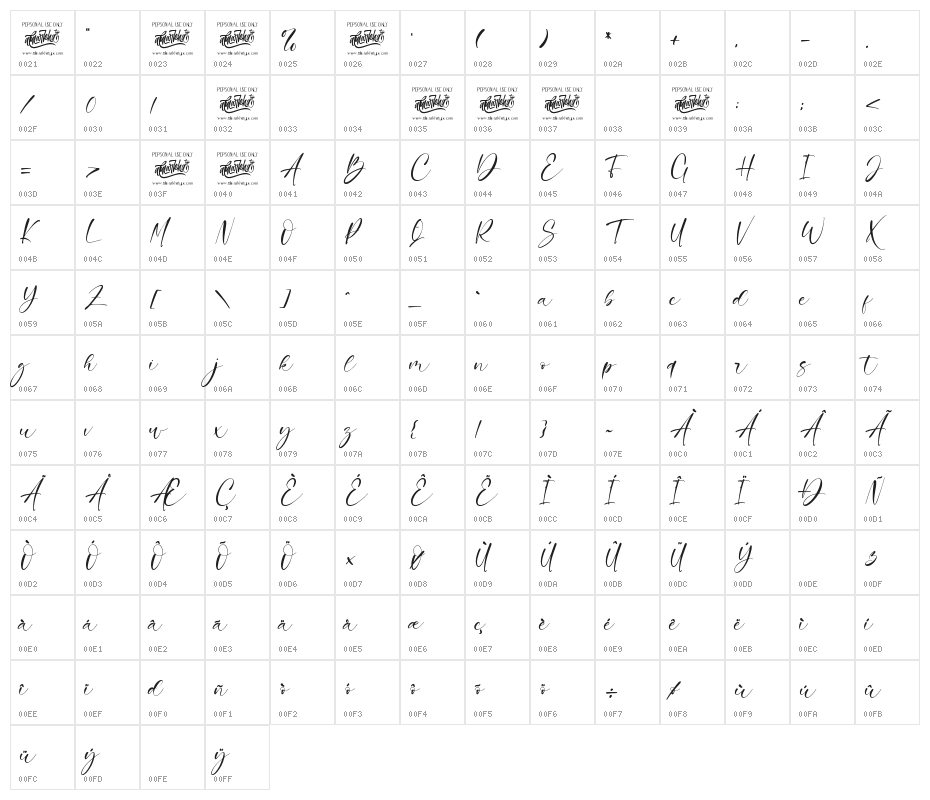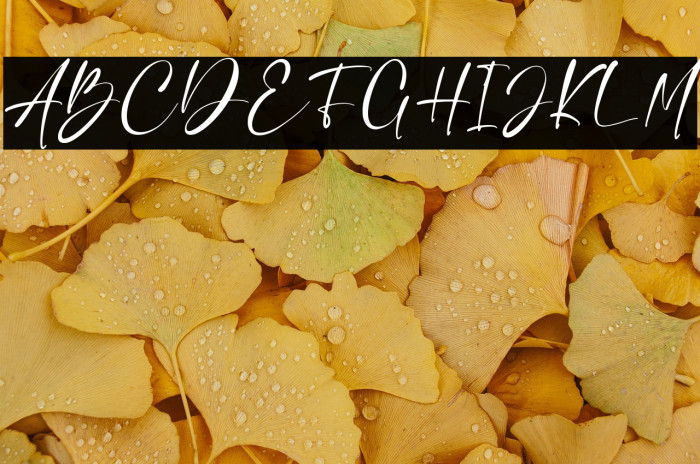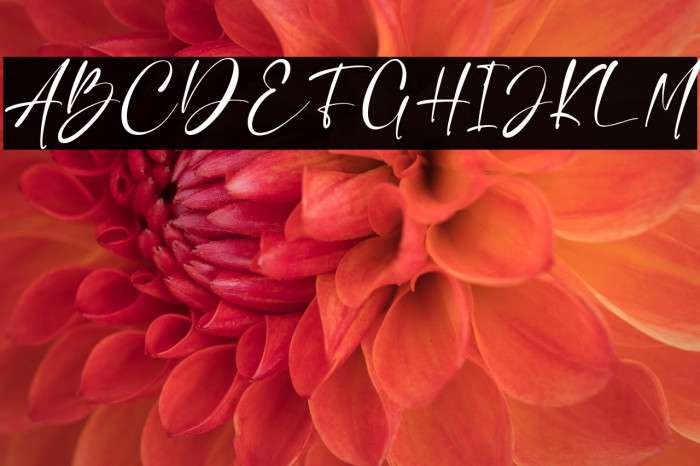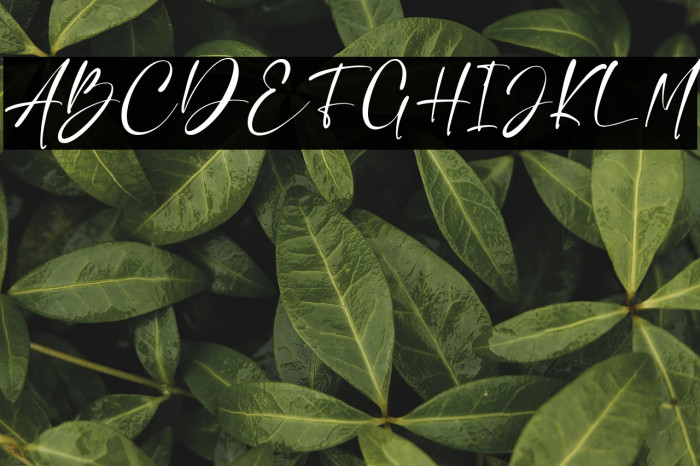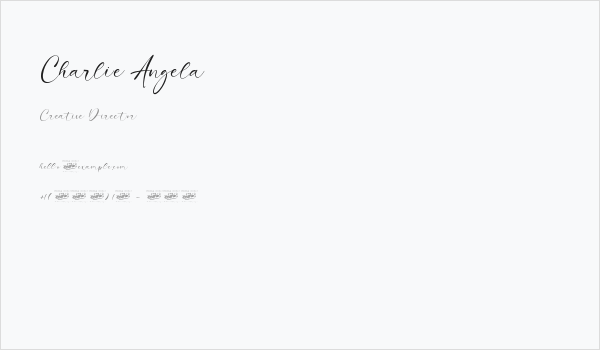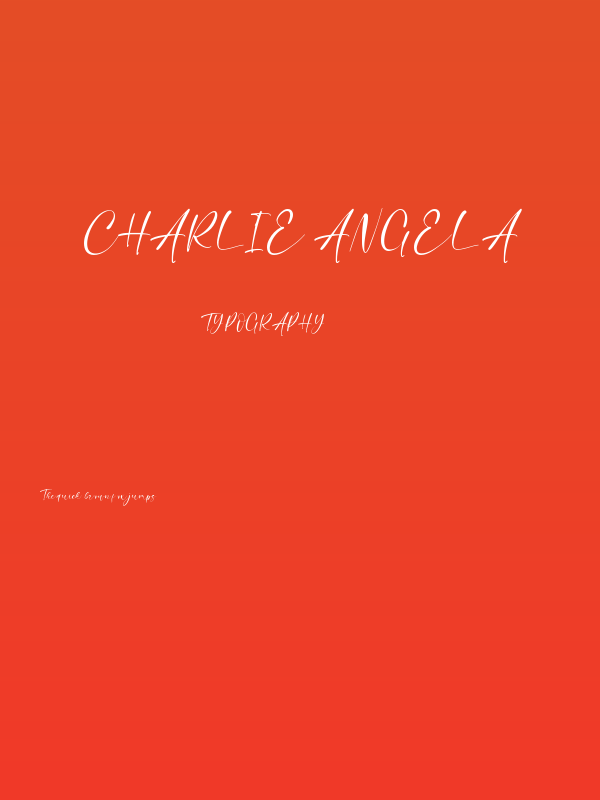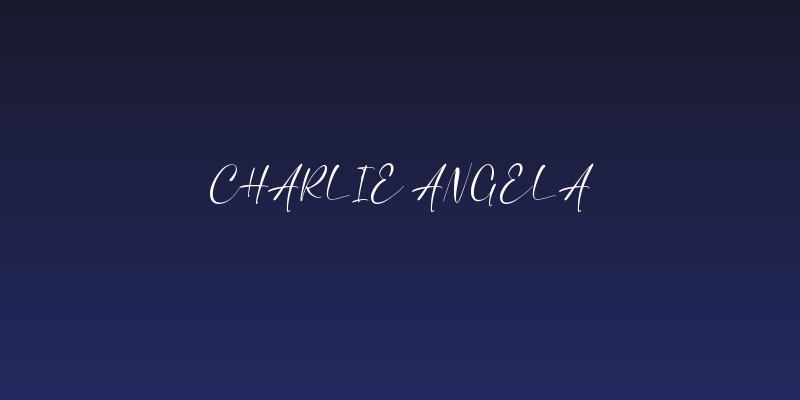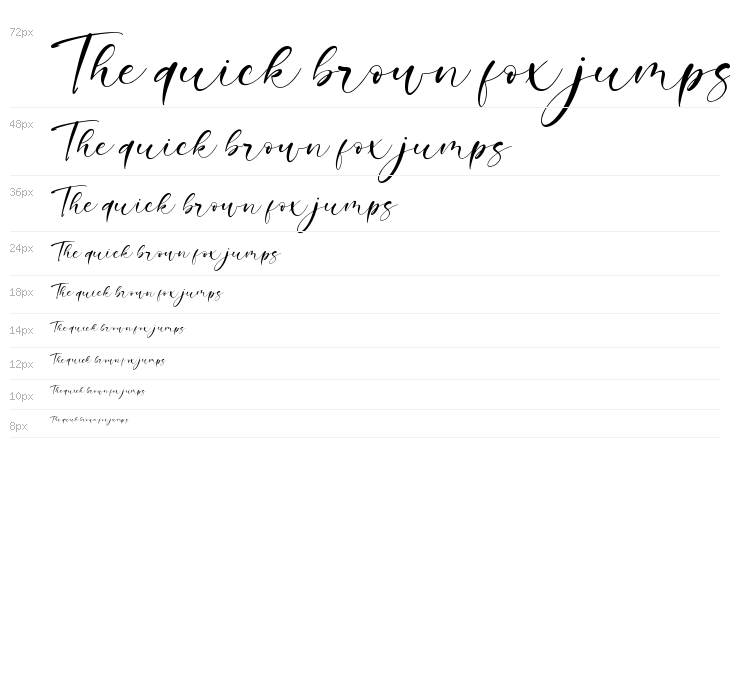
Charlie Angela Font
Charlie Angela Description
This elegant script font features a fluid, handwritten style with a modern touch. The uppercase letters are bold and sweeping, with dramatic flourishes that give a sense of movement and grace. The lowercase letters maintain a consistent flow, with smooth curves and a slightly slanted orientation, enhancing the handwritten feel. The numbers and special characters are designed to complement the letters, maintaining the same fluidity and style. This font is perfect for projects that require a personal, artistic touch, such as invitations, greeting cards, or branding materials.
| Proposed Projects | Ideal for wedding invitations, branding, greeting cards, and artistic projects. |